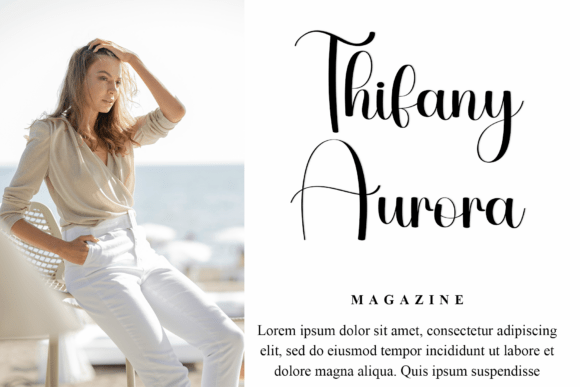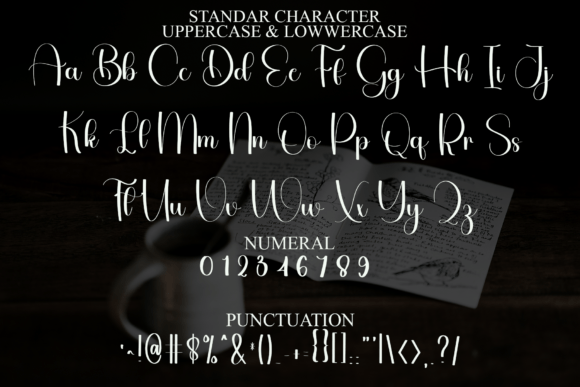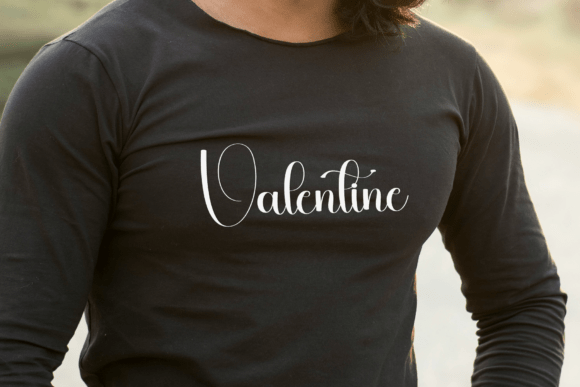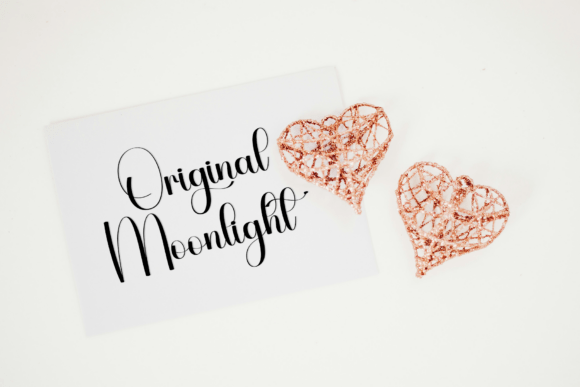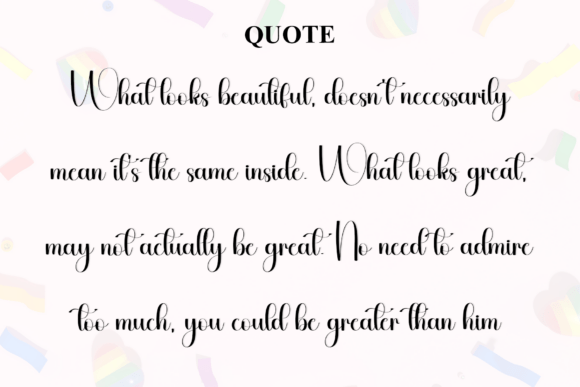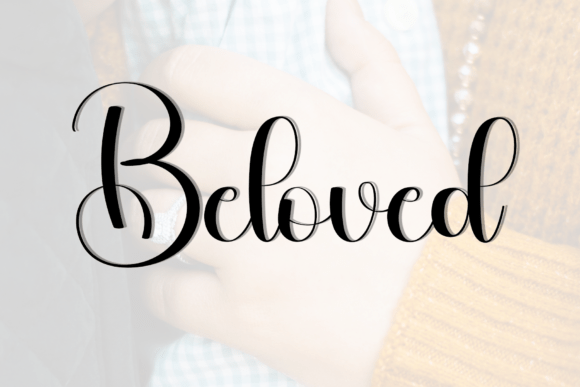
Gingham Font: Add a Touch of Warmth and Friendliness to Your Designs
Are you looking for a font that can add a personal touch to your designs? Look no further than the Gingham Font. This casual and creative font is perfect for designers and crafters who want to create a relaxed and approachable feel in their work. In this article, we’ll explore the features and benefits of the Gingham Font and how it can elevate your designs.
The Characteristics of Gingham Font
Gingham Font is a hand-drawn font that exudes warmth and friendliness. Its round, playful strokes create a charming and inviting feel, making it perfect for personal projects, invitations, and social media graphics. The font’s unique and fun aesthetic adds a touch of personality to any design, setting it apart from more traditional fonts.
Key Features of Gingham Font
- Casual and Creative: Gingham Font has a relaxed and casual feel that’s perfect for creative projects.
- Hand-Drawn Aesthetic: The font’s hand-drawn design adds a unique and personal touch to any design.
Uses of Gingham Font
Gingham Font is a versatile font that can be used in a variety of design projects. Here are some ideas to get you started:
- Personal Projects: Use Gingham Font to add a personal touch to your personal projects, such as photo albums, scrapbooking, and DIY crafts.
- Invitations: The font’s friendly and approachable feel makes it perfect for invitations, such as birthday parties, baby showers, and weddings.
- Social Media Graphics: Gingham Font is great for creating social media graphics, such as Facebook posts, Instagram stories, and Pinterest pins.
- Branding: The font’s unique aesthetic makes it a great choice for branding projects, such as logos, business cards, and letterheads.
Tips for Using Gingham Font
Here are some tips for getting the most out of Gingham Font:
- Pair with Other Fonts: Experiment with pairing Gingham Font with other fonts to create a unique and interesting contrast.
- Use in Headings: Use Gingham Font in headings to add a touch of personality to your designs.
- Experiment with Colors: Try out different colors to see how they affect the overall feel of the font.
In conclusion, Gingham Font is a versatile and charming font that’s perfect for designers and crafters who want to add a personal touch to their designs. Its casual and creative feel makes it ideal for personal projects, invitations, and social media graphics. With its standard PUA Encoded glyphs and wide compatibility, Gingham Font is a great addition to any design toolkit.